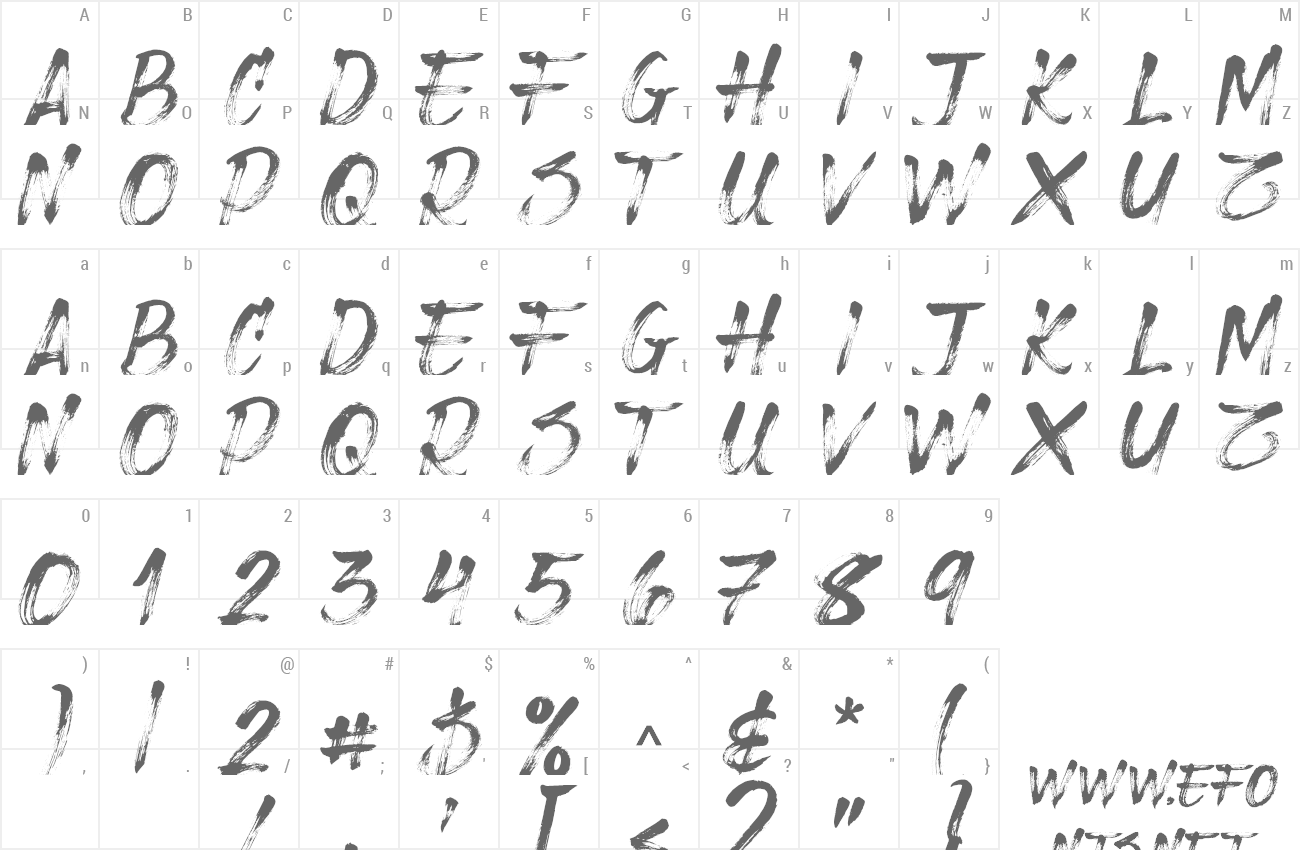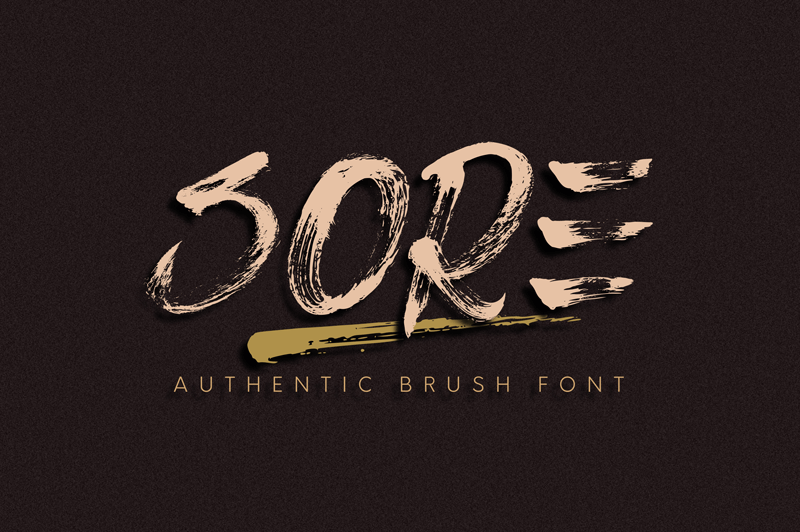
ENGLISH DETAILS SORE! An authentic brush font. SORE font is suitable for branding, logotype, apparel, T-shirt, Hoodie, product packaging, quotes, flyer, poster, advertising, etc. Whats Include? 1. Uppercase and lowercase characters 2. Multilingual support. 3. Numerals, punctuations, alternates, and ligatures 4. Accessible in the Adobe Illustrator Glyphs panel, or under Stylistic Alternates in the Adobe Photoshop OpenType menu, Adobe InDesign, Corel Draw, even work on Microsoft Word. FULL VERSION AND COMMERCIAL LICENSE: https://www.creativefabrica.com/designer/omotu/ref/144864/ FOR EXTENDED LICENSE PLEASE CONTACT: ibnu.blawong2@gmail.com Please message me if you're unsure of any language support. Thanks for looking, and I hope you enjoy it! Please don't hesitate to drop me a message if you have any issues or queries. -------------------------------------------- BAHASA Mohon luangkan waktu untuk membaca Syarat & Ketentuan penggunaan font, Untuk Pembelian Lisensi kunjungi marketplace: https://www.creativefabrica.com/designer/omotu/ref/144864/ Sebelum memutuskan untuk menggunakan font secara komersial. More... |